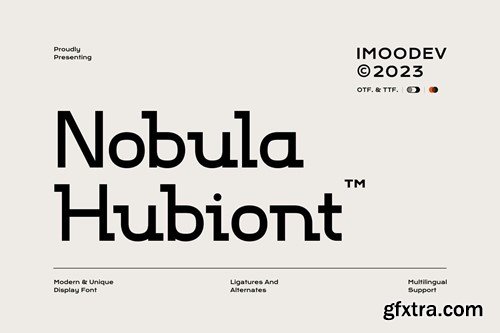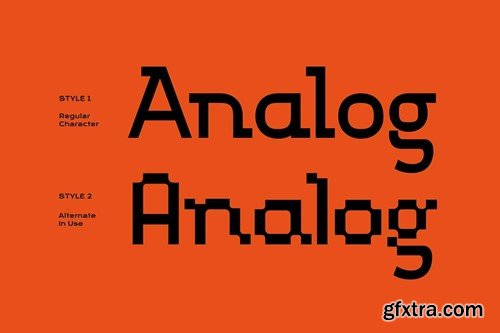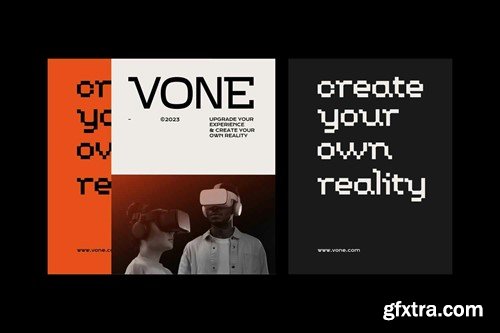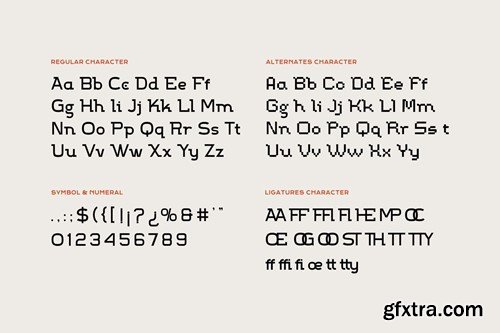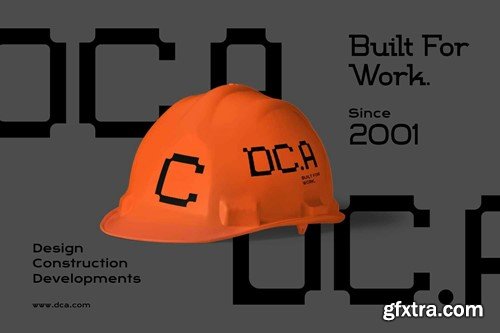
Nobula Hubiont - Modern Unique Display Font PP9CLP4
Nobula Hubiont - Modern Unique Display Font
Nobula Hubiont is a modern unique display font that has smooth curves and a visual style a can embodies charm and elegance in every lettering, making your work look stunning and attractive.
A versatile font that works in both uppercase and lowercase sizes, suitable for a wide variety of projects such as a display font for headings, logo fonts, invitations, branding, book covers, magazine layouts, card, product packaging, product mockup, mugs, posters, labels, editorials, art deco, and any type of advertising purpose.